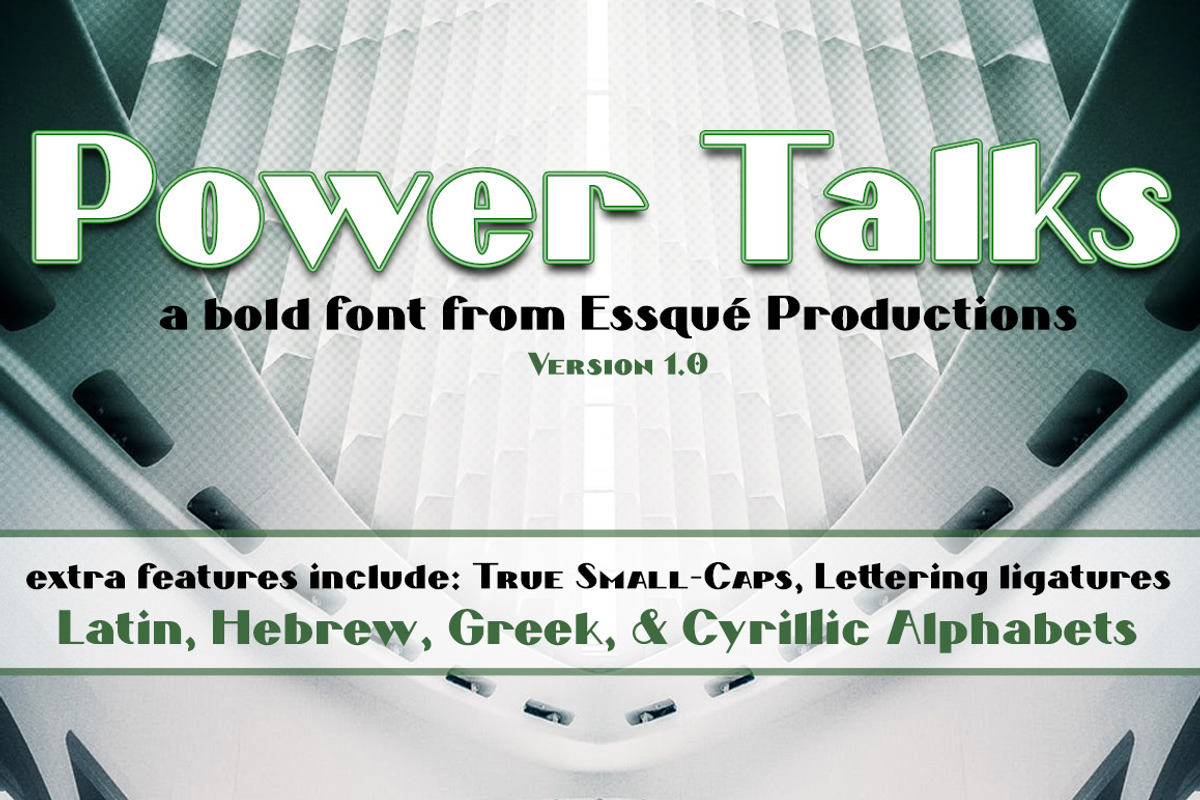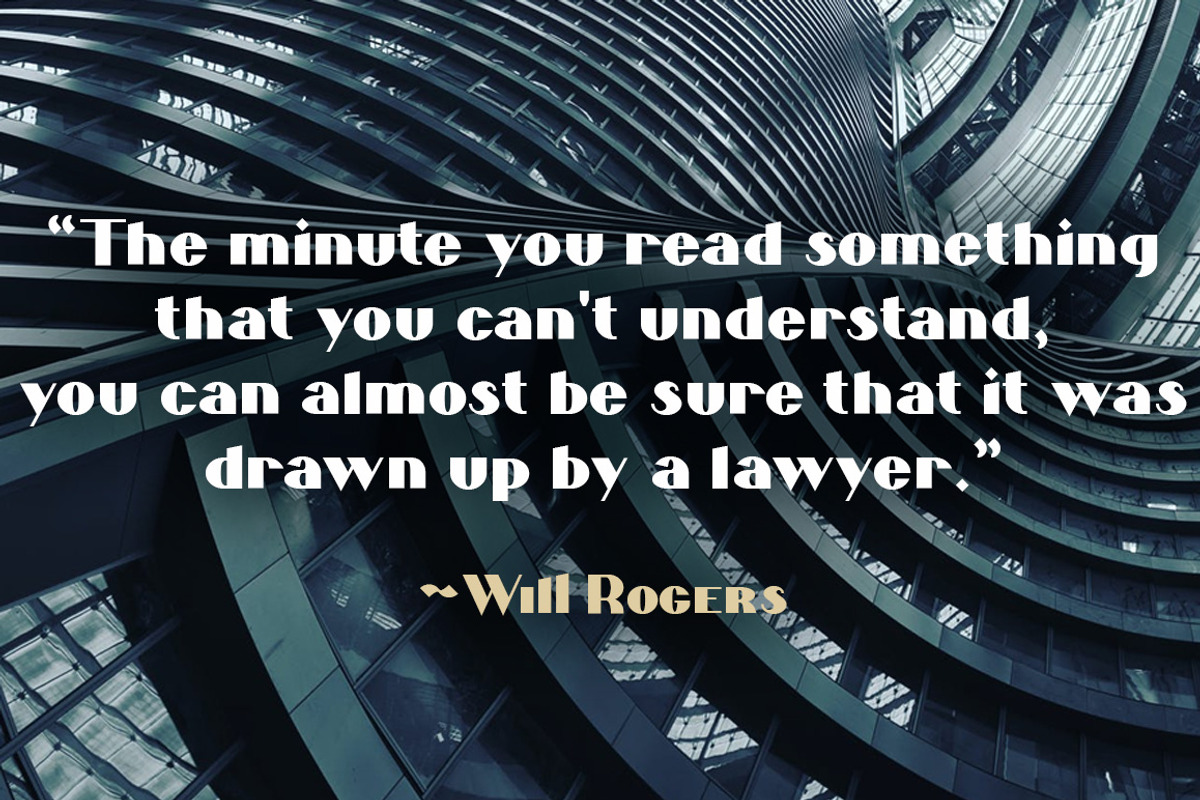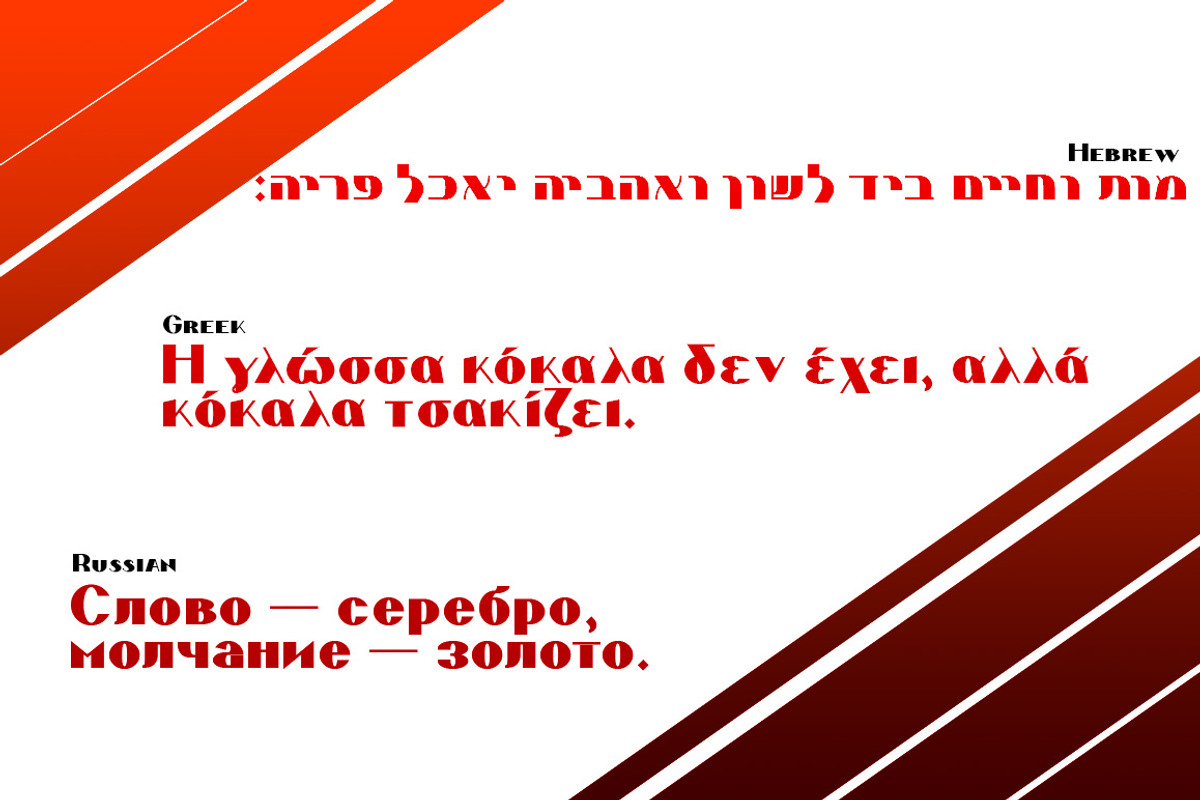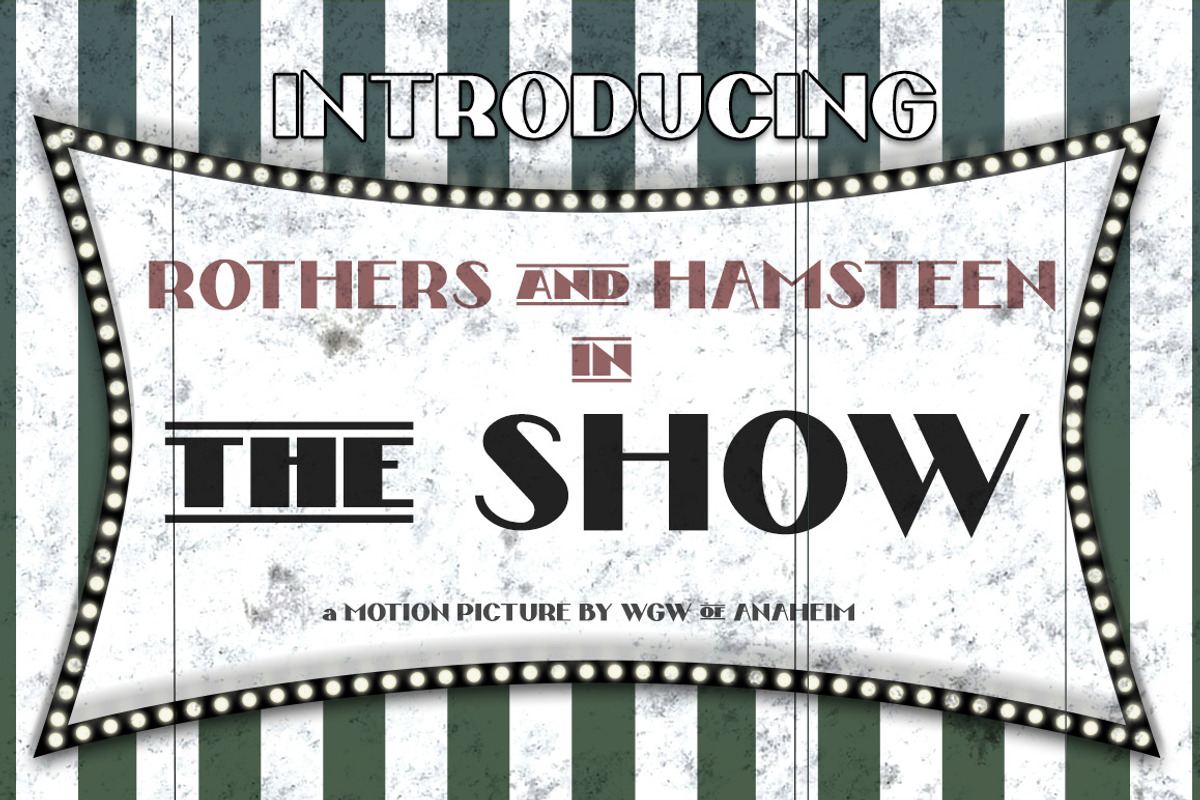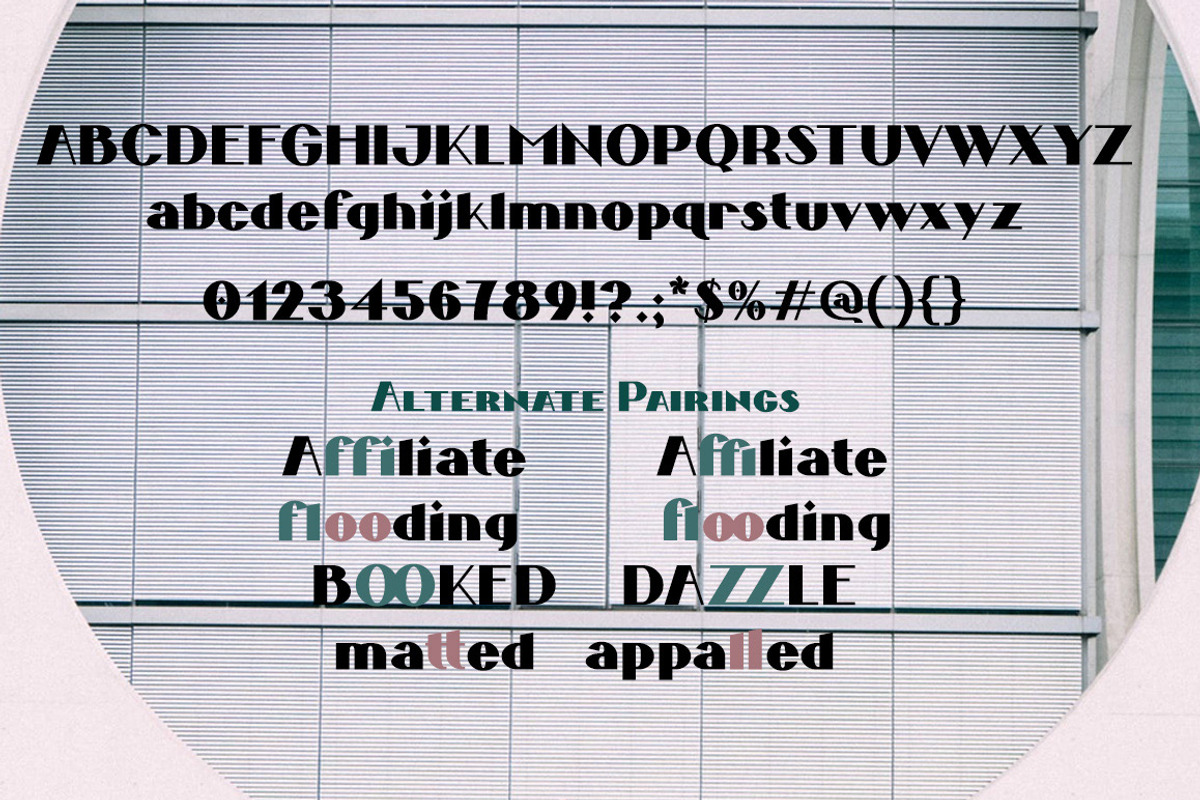
Power Talks
Inspired by bank and classic financial/law visuals. Alternates, small caps, and multilingual support. Includes Latin, Greek, Hebrew, and Cyrillic alphabets.